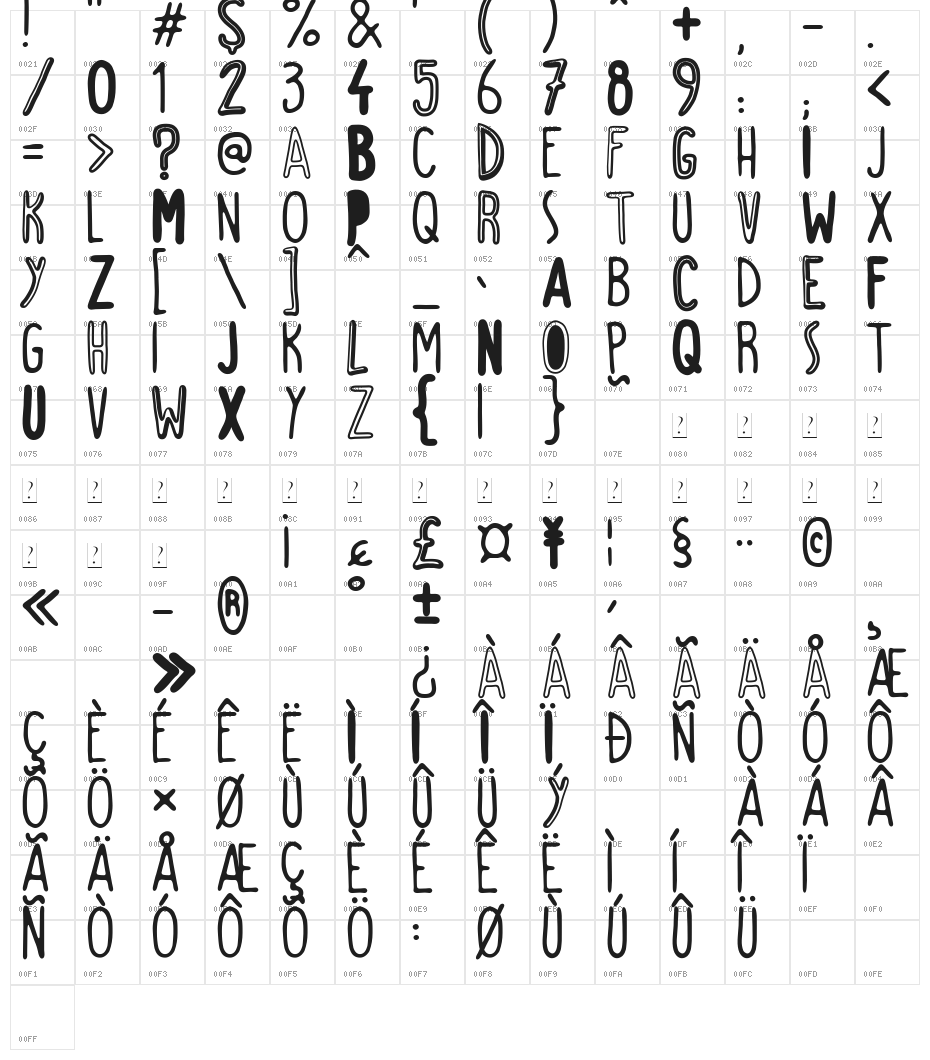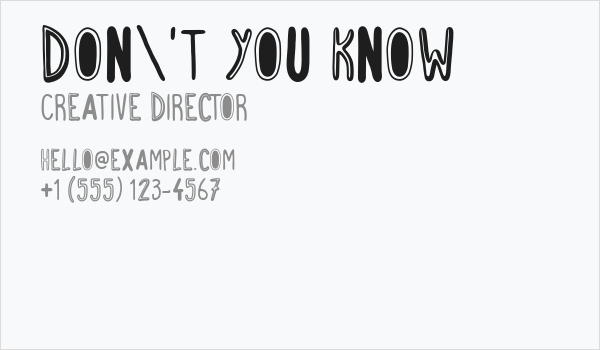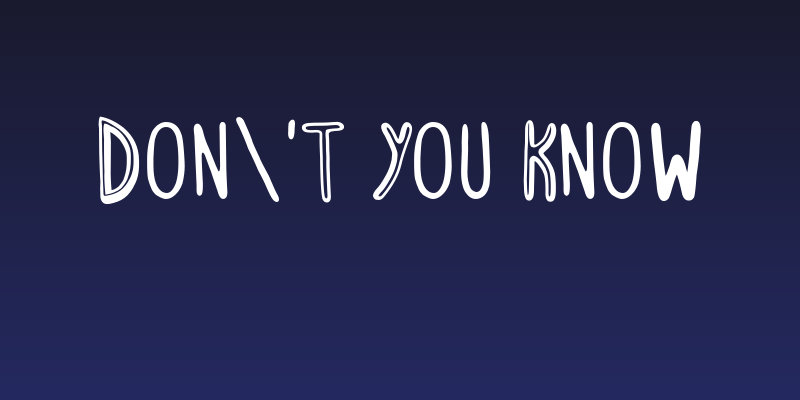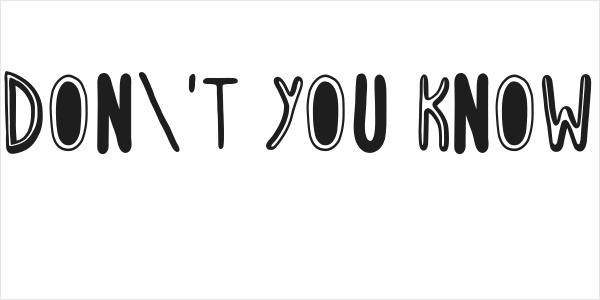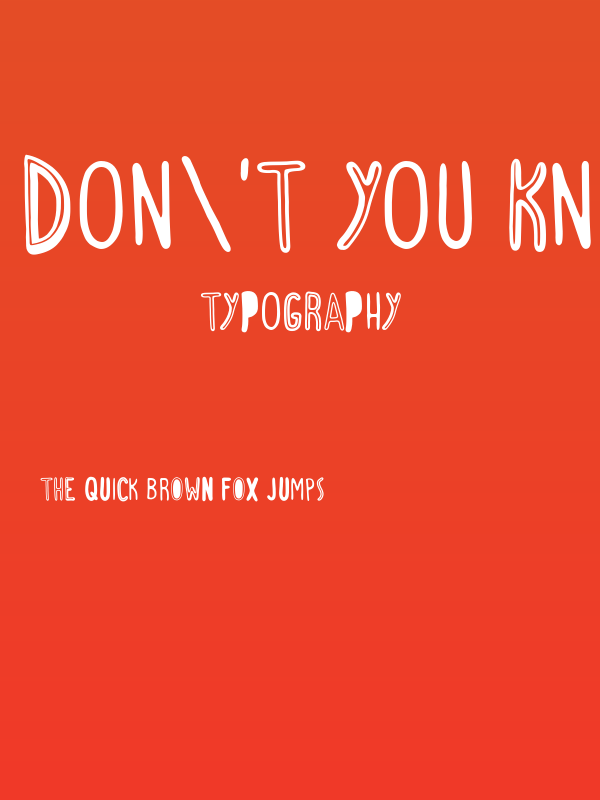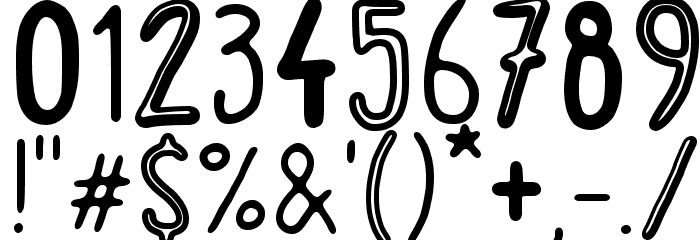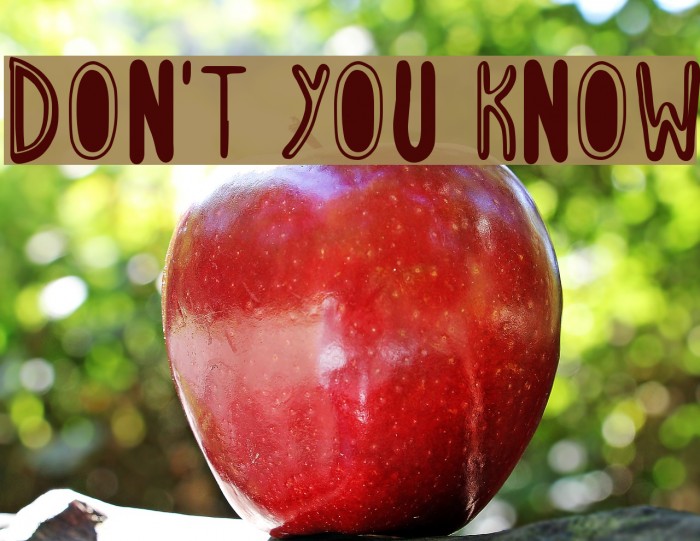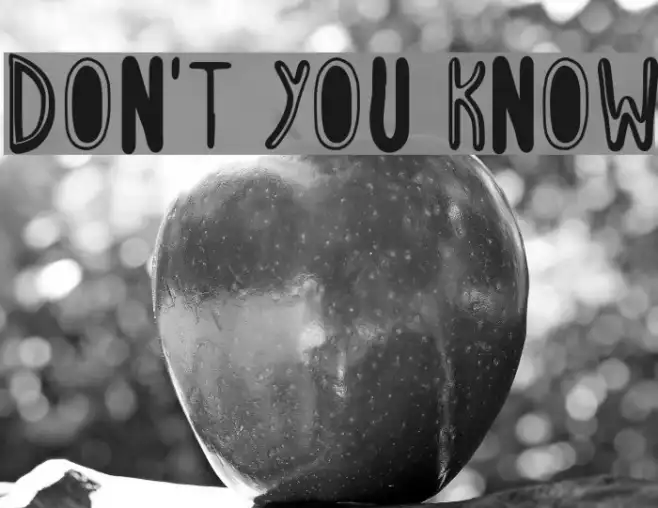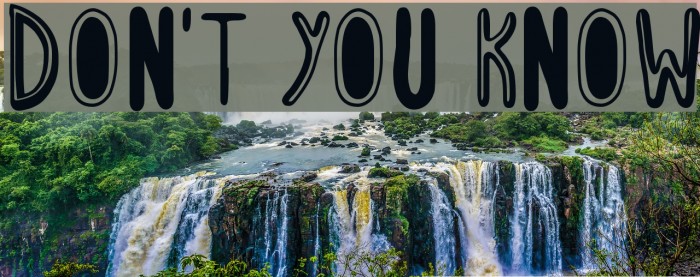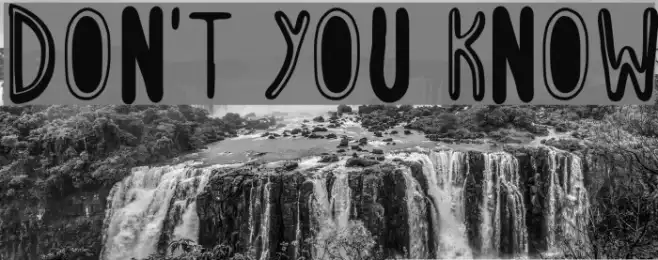
Don't You Know Font
Don't You Know Description
This playful and eclectic font features a mix of bold and outlined characters, creating a dynamic and eye-catching appearance. The uppercase letters are a blend of solid and hollow forms, giving a sense of movement and energy. The lowercase letters maintain this playful style, with some characters appearing more whimsical and others more structured. The numbers follow a similar pattern, with a mix of bold and outlined styles. Special characters are included, adding versatility to the font. This font's unique style makes it suitable for creative and informal projects, where a sense of fun and individuality is desired.
| Overall Style | Playful, Eclectic |
| Proposed Projects | Ideal for posters, children's books, playful branding, and creative social media graphics. |